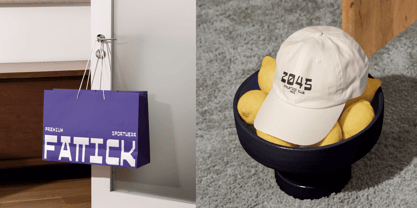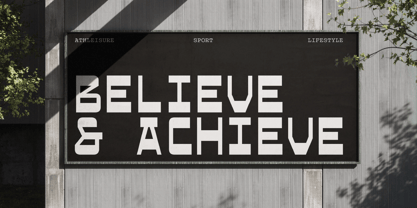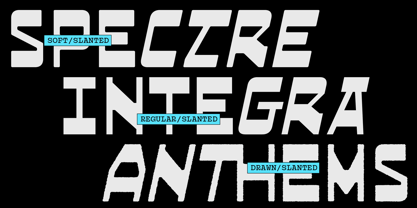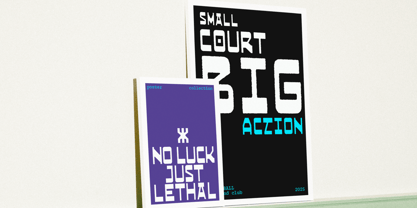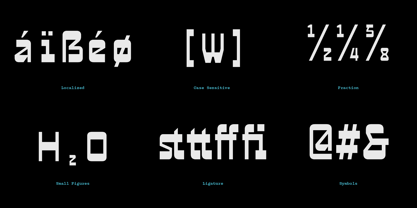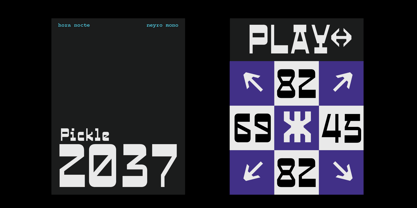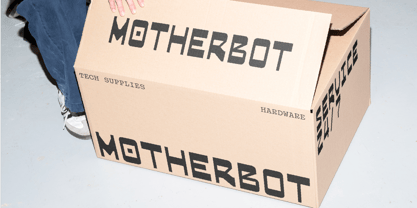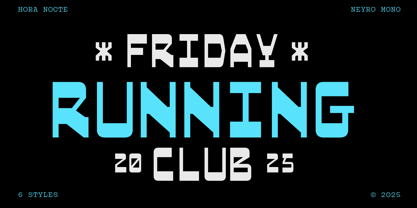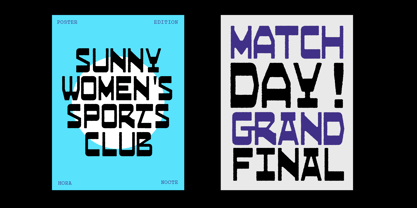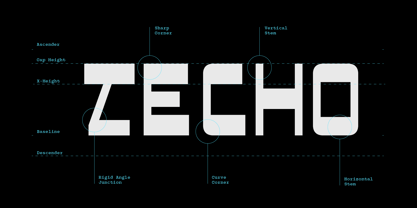
HN Neyro Mono
por Hora Nocte Type Foundry
La familia tipográfica HN Neyro Mono fue diseñada por Hasto Nugroho y publicada por Hora Nocte Type Foundry. HN Neyro Mono contiene 6 estilos y opciones de paquete familiar. Más información sobre esta familia
HN Neyro Mono: Geometric Monospaced Elegance HN Neyro Mono is crafted for those who appreciate the precision and distinctiveness of a display typeface. Its geometric, monospaced design brings a fresh approach to text with its six unique styles, including Regular, Soft, Drawn, and Slanted versions. This diversity in style offers graphic designers the flexibility to utilize it across various creative projects. Applications Poster Design – Its bold structure enhances visibility and impact. Headline Creation – Perfect for striking, attention-grabbing titles. Branding Solutions – Adds a unique touch to identity and logos. HN Neyro Mono provides a visually distinctive typographic solution for designers seeking to make a bold statement.
Diseñadores: Hasto Nugroho
Fundición: Hora Nocte Type Foundry